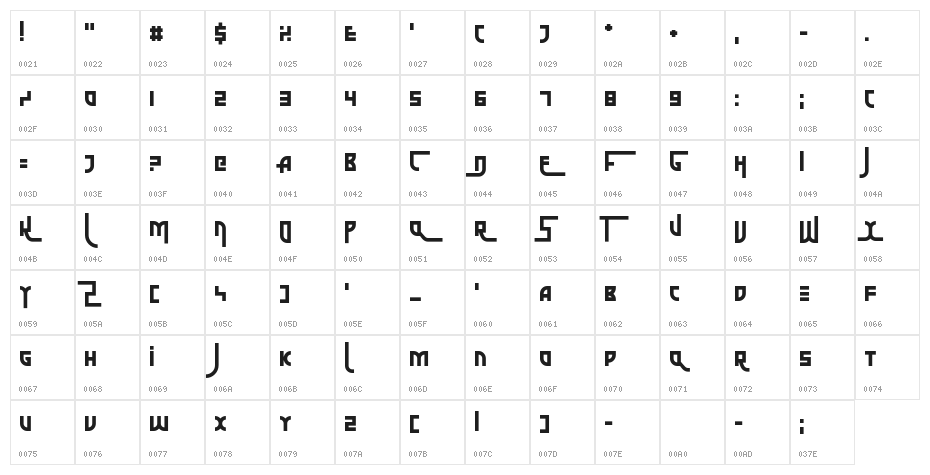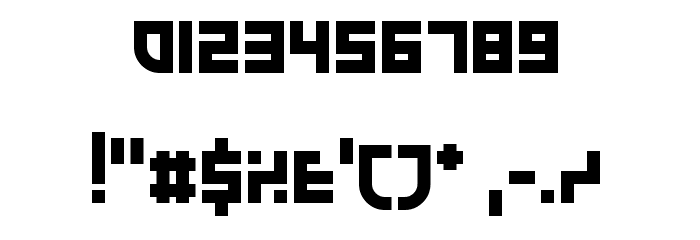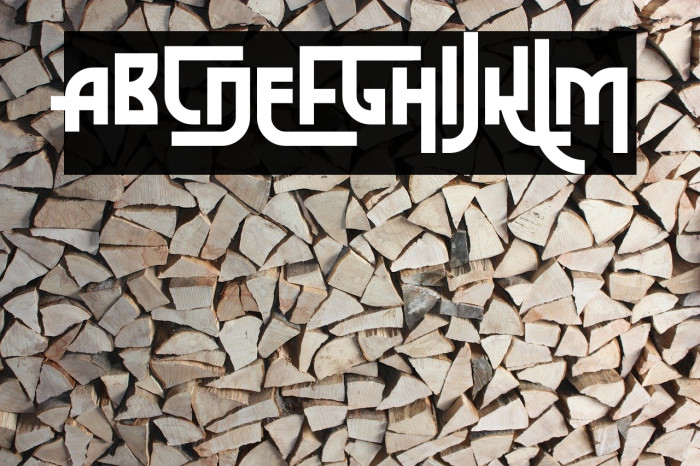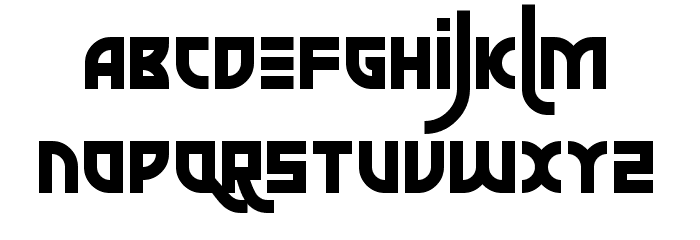
The Jjester Font
The Jjester Description
This font features a bold and geometric design with a futuristic flair. The characters are constructed with thick, uniform strokes that create a sense of strength and stability. The angular and blocky shapes give it a distinctive, modern appearance, while the consistent stroke width ensures readability. The uppercase and lowercase letters maintain a cohesive style, with some characters incorporating unique, stylized elements that add to the font's visual interest. The numerals and special characters follow the same design principles, ensuring a harmonious overall look.